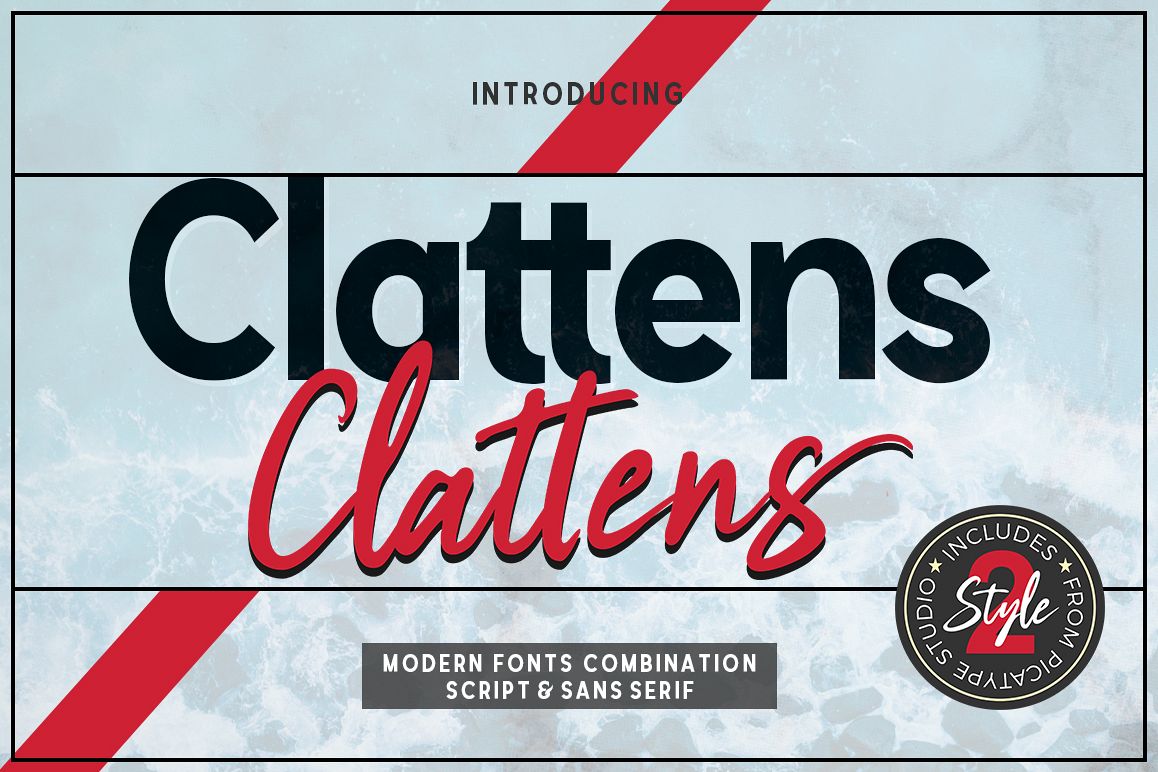
Clattens # Font Duo
**Clattens- a new handmade font combination.**
This fonts is ideal for branding and decorate your any project.a cool combination between super heavy sans serif and carefree brush script Also with their help, you can create a logo or beautiful frame for your home. Or just use for your small business, book covers, stationery, marketing, blog, magazines and more. Whenever you need strong impression for your design, Clattens is there for you.It's nice to have a trustworthy resource as an option, isn't it? Give it a try, mix it up, and be awesome!